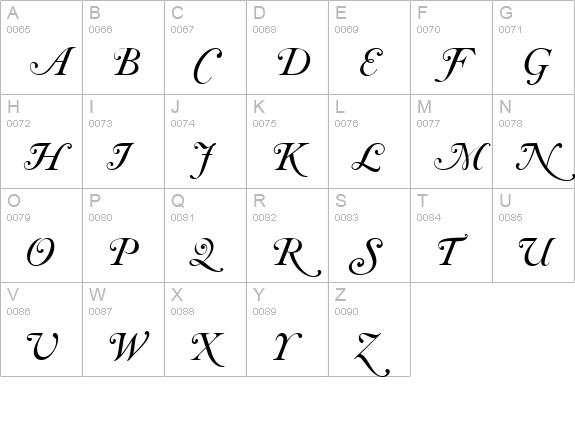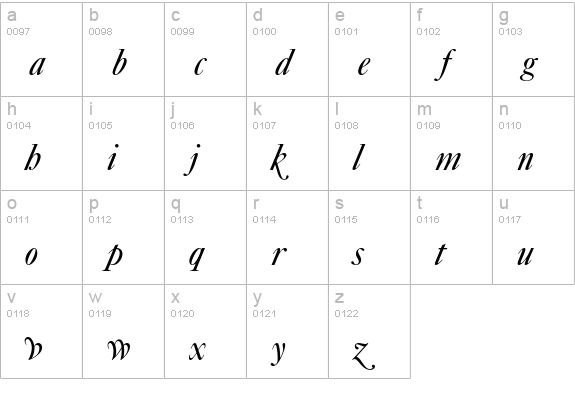
CaslonNo540SwaD Italic Font Details
CaslonNo540SwaD Italic is a distinctive, italic variant in the CaslonNo540SwaD typeface family \xE2\x80\x94 well suited to design and typography projects.
CaslonNo540SwaD Italic font is a stylish and elegant typeface that brings a touch of sophistication to any design project. Its graceful curves and flowing lines make it perfect for adding a touch of class to invitations, posters, and other printed materials. The italic style of CaslonNo540SwaD adds a sense of drama and flair, making it a versatile choice for both formal and casual designs. Whether you're creating wedding invitations or crafting a logo for your business, this font is sure to make a statement. And the best part? CaslonNo540SwaD Italic font is completely free to download at FontsMarket.com. So you can add this beautiful typeface to your collection without breaking the bank. Don't miss out on the opportunity to elevate your designs with this stunning font – download it today and see the difference it can make!